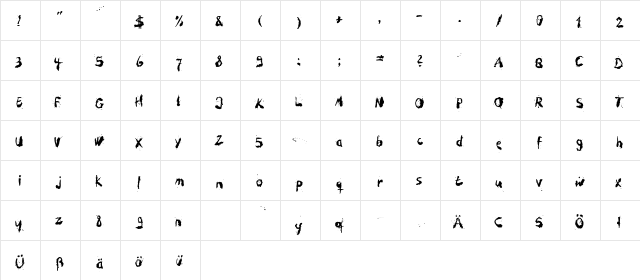
ConceptTwo Regular
Design Context for ConceptTwo Typeface
ConceptTwo is a composed and adaptable typeface that performs quietly and consistently across a wide range of design contexts.